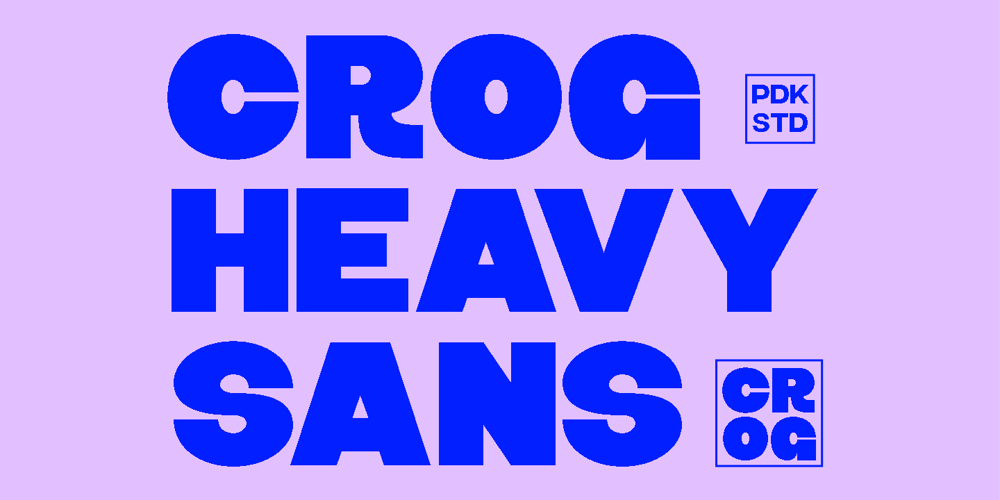
Crog
Crog font
Crog Font Family was designed by Sagara Nararya and published by Pandeka Studio. Crog contains 9 styles and family package options. Crog is a big heavy sans that available in 9 family variations (Thin, Extra Light, Light, Regular, Medium, Semi Bold, Bold, ExtraBold, Black)Crog is a chunky, funky, loud, and cutely proud kinda font. Crog is playful, and bold while not being shouty with its soft corner. Its large real estate means it’s perfect for an image-fill effect while still being legible.It’s the kinda font that looks like you wanna give it a big hug!Features: Crog Main Files 9 Variable Font (Thin, Extra Light, Light, Regular, Medium, Semi Bold, Bold, ExtraBold, Black) Instructions (Access special characters in all apps, even in Cricut Design) Accessible in Adobe Illustrator, Adobe Photoshop, Microsoft Word even Canva! PUA Encoded Characters. Fully accessible without additional design software Language Support: Danish, English, Estonian, Filipino, Finnish, French, Friulian, Galician, German, Gusii, Indonesian, Irish, Italian, Luxembourgish, Norwegian Bokmål, Norwegian Nynorsk, Nyankole, Oromo, Portuguese, Romansh, Rombo, Spanish, Swedish, Swiss-German, Uzbek (Latin) Feel free to follow, like and share. Thanks so much for checking out my shop!Have a great day!Pandeka Studio